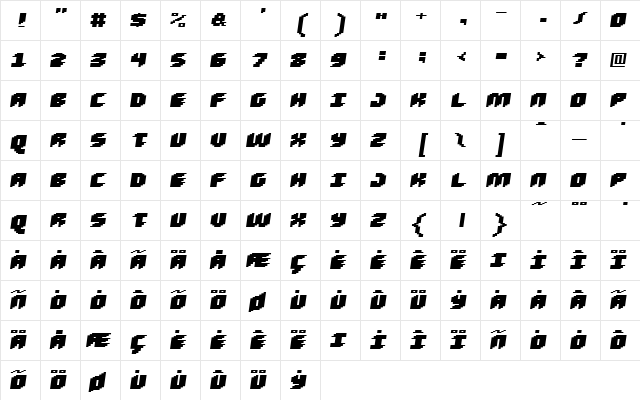
Loud noise Black Skew Regular
Design Context for Loud noise Black Skew Typeface
Loud noise Black Skew is a composed and adaptable typeface that performs quietly and consistently across a wide range of design contexts.